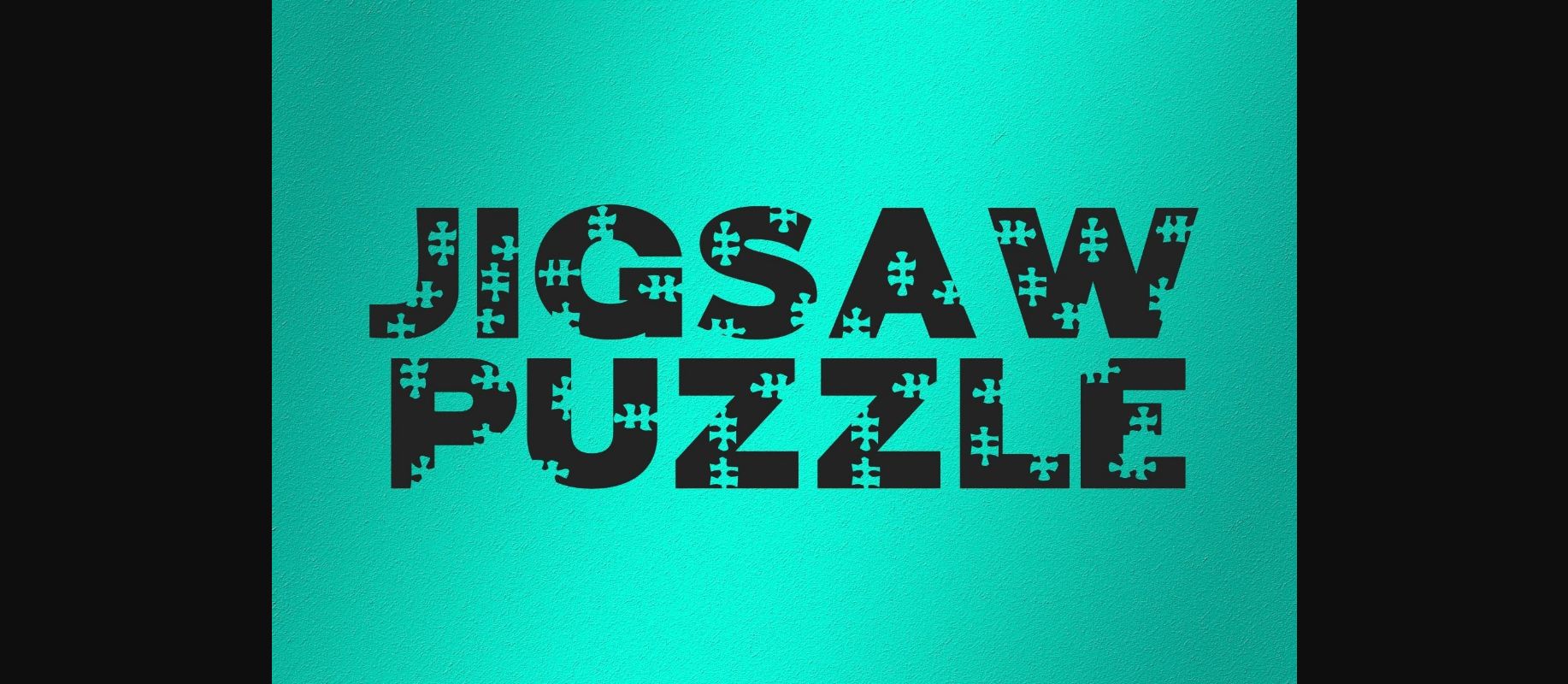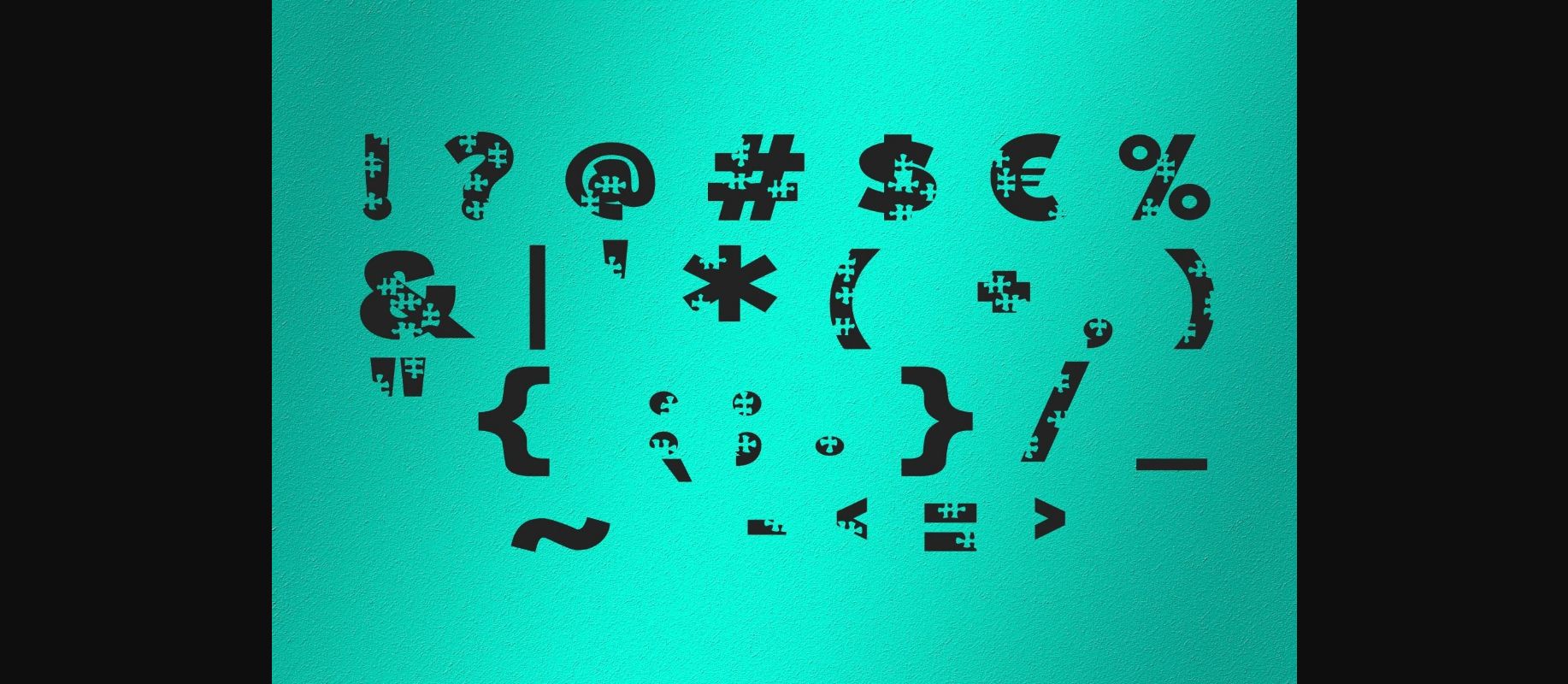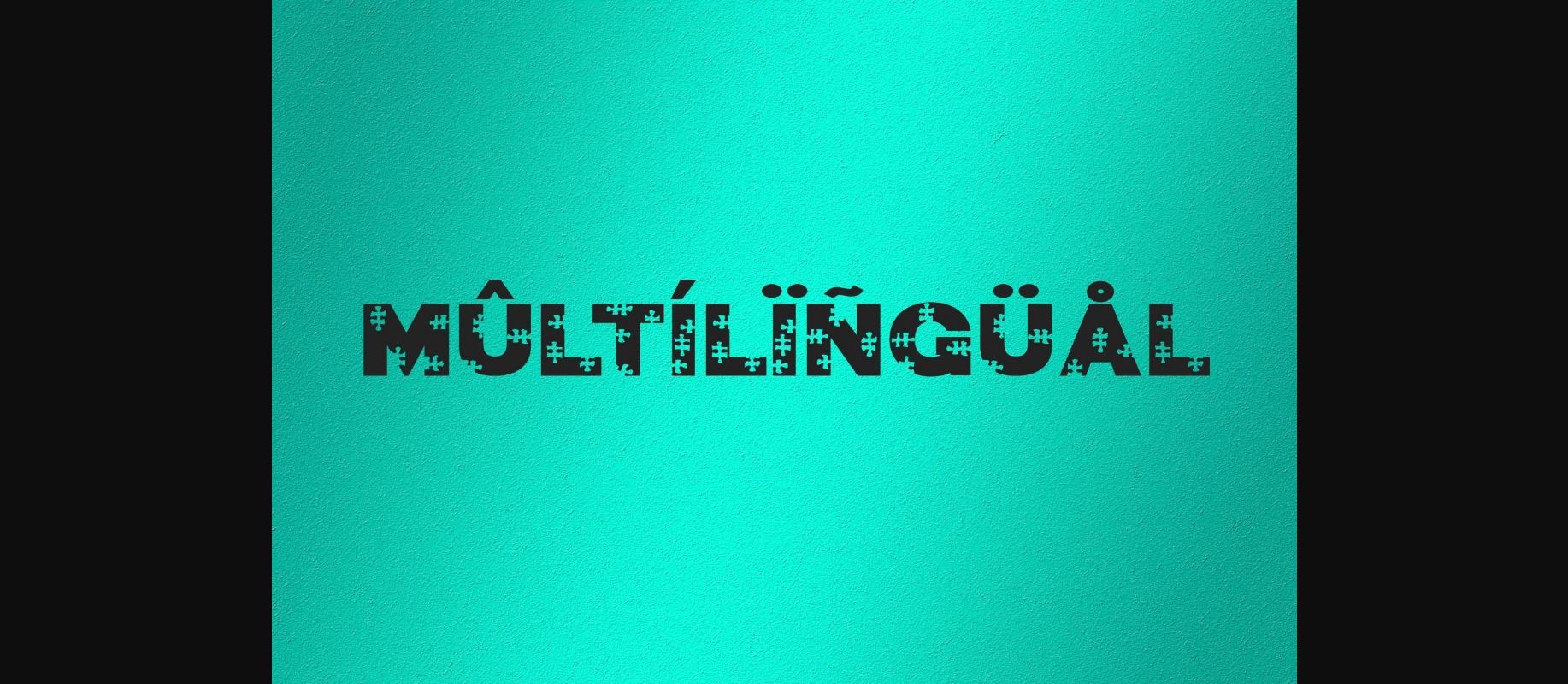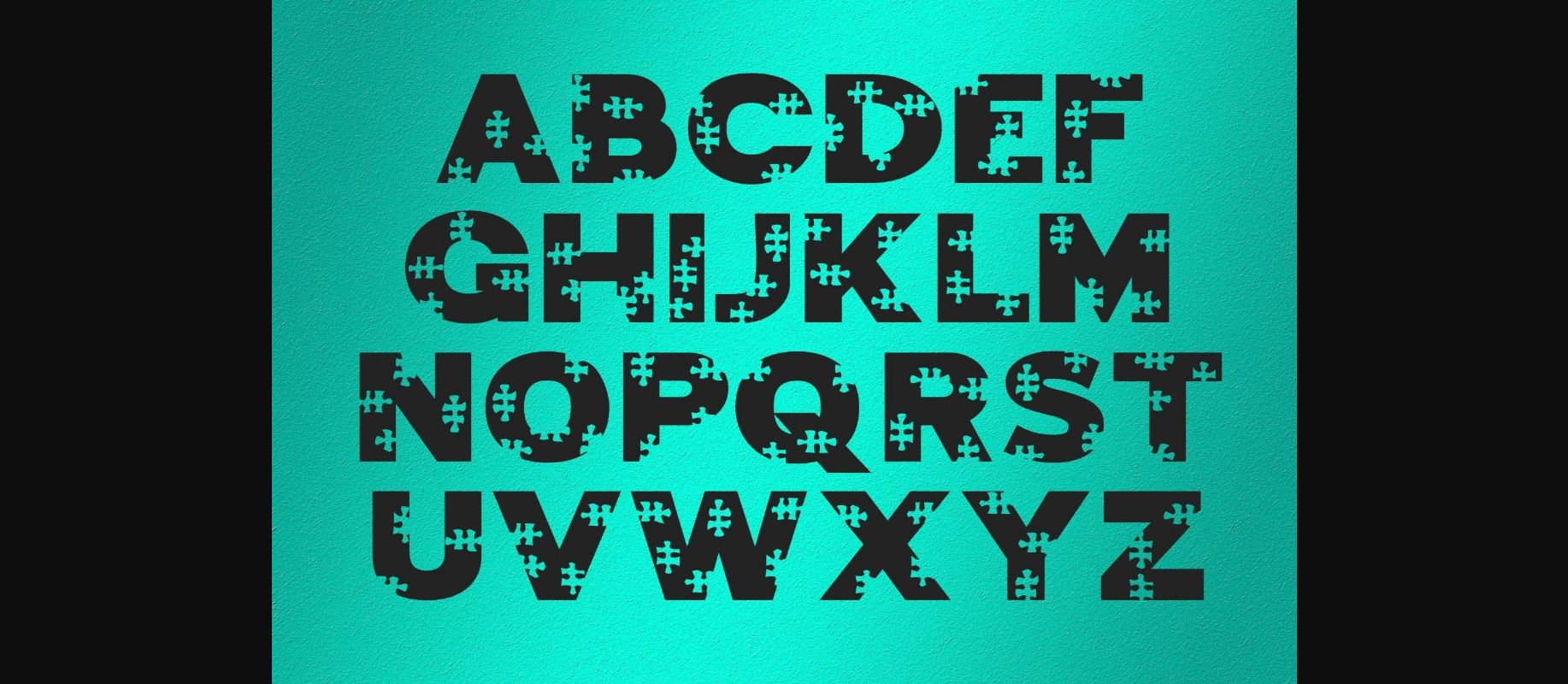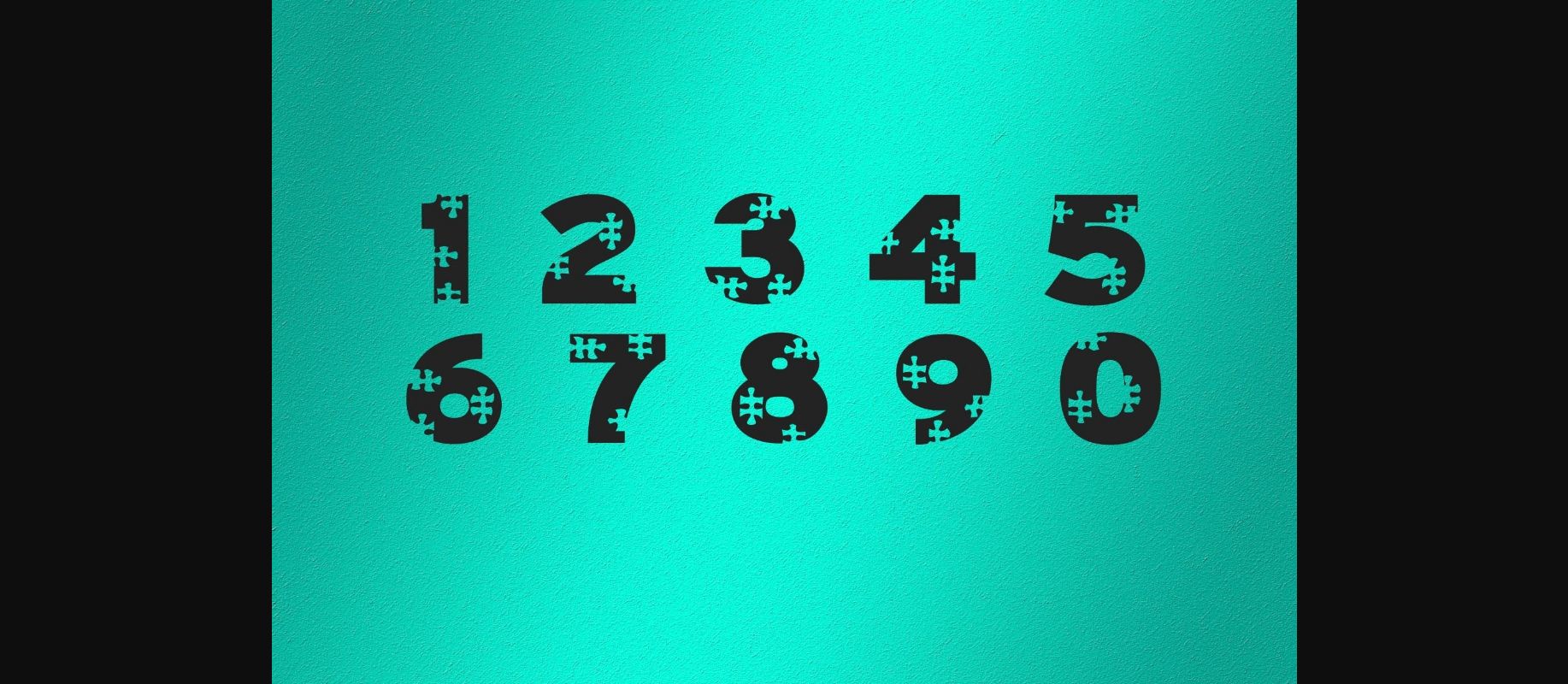
Jigsaw Puzzle Font
About Jigsaw Puzzle Font
Jigsaw Puzzle is a fun and unique decorative font. Whether you are using it for cartoon-related designs, children’s games, quotes, titles, brand names, book covers, posters, or just any creation that requires a touch of joy, this font is a great choice.